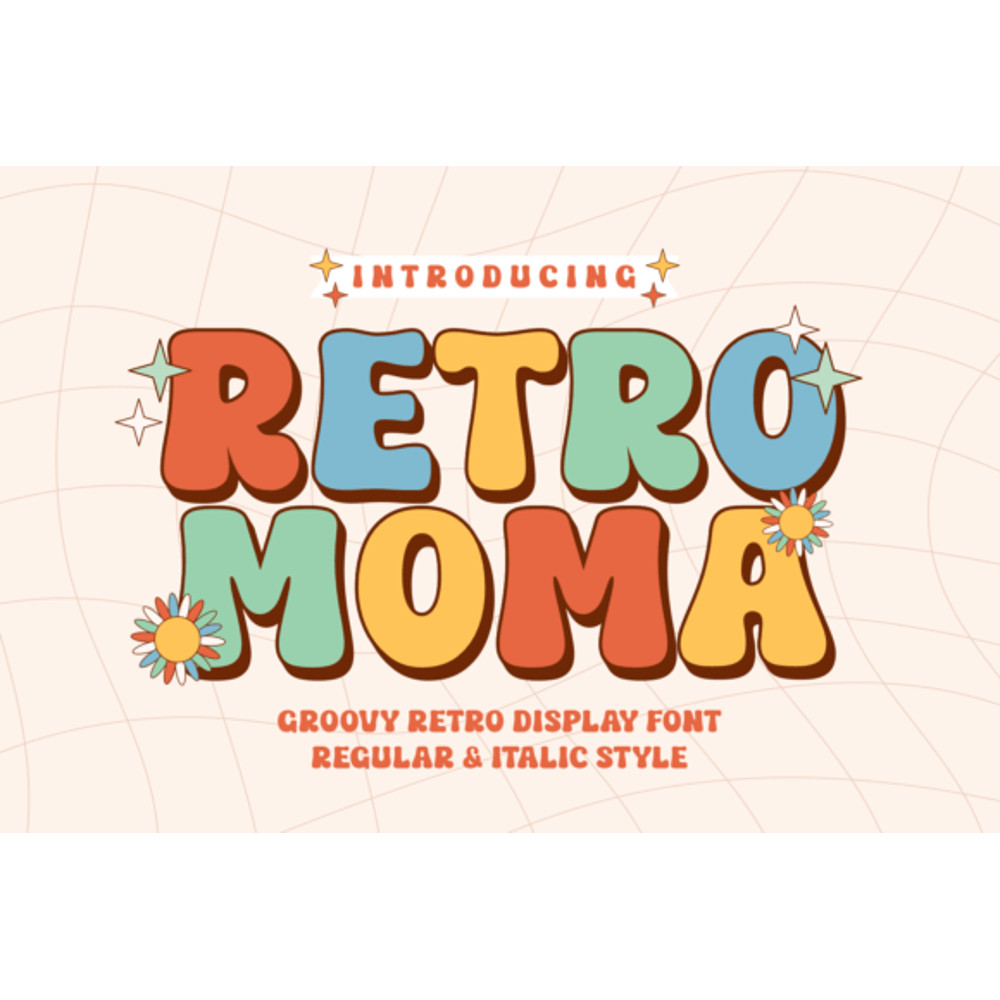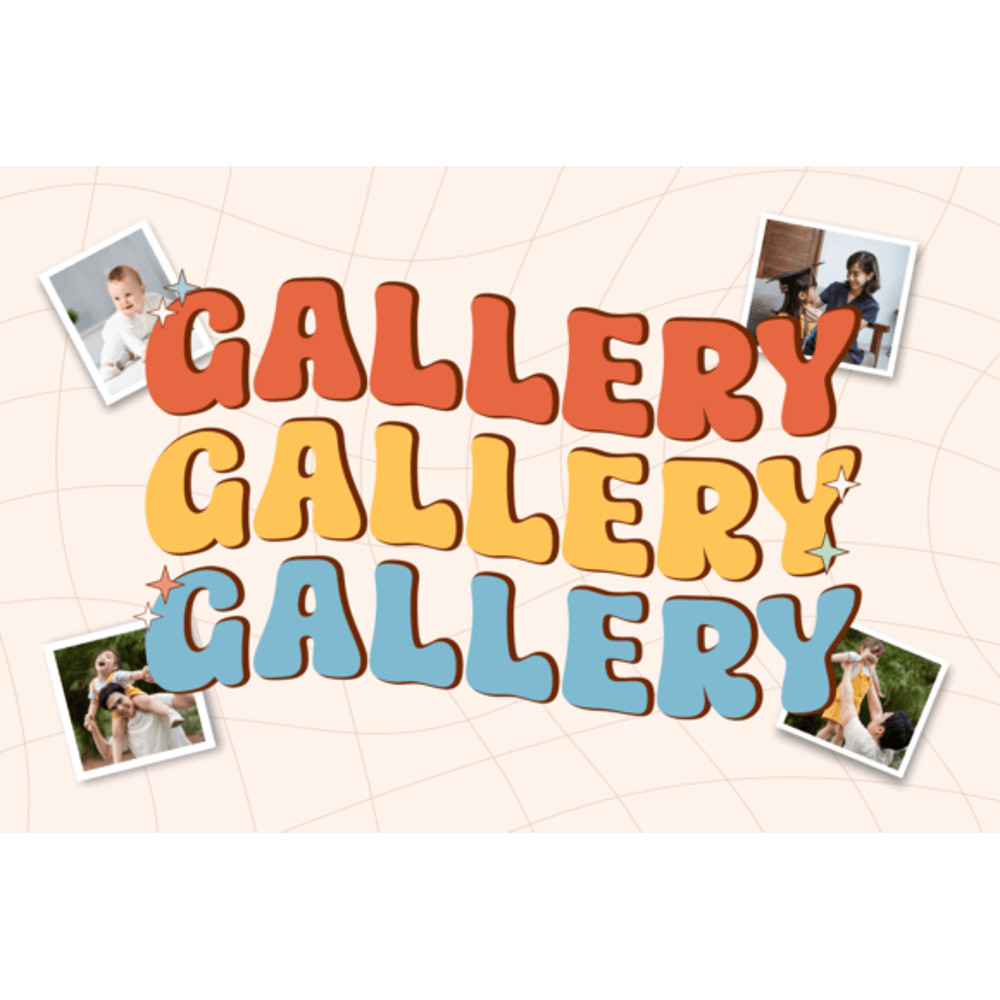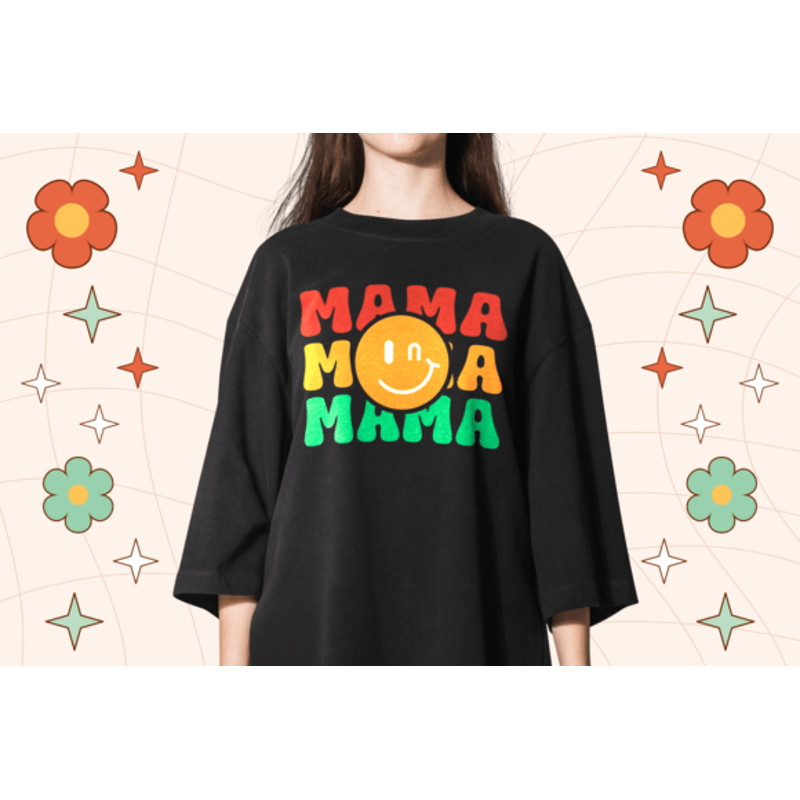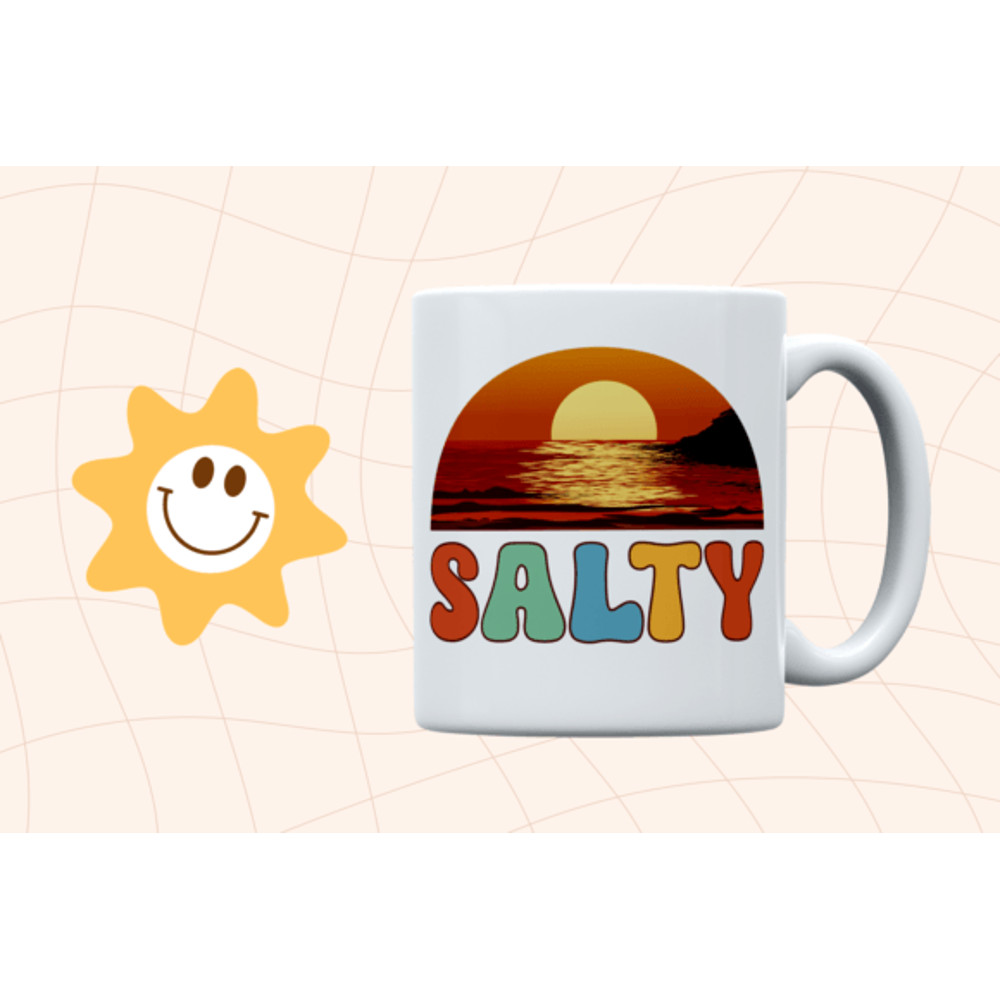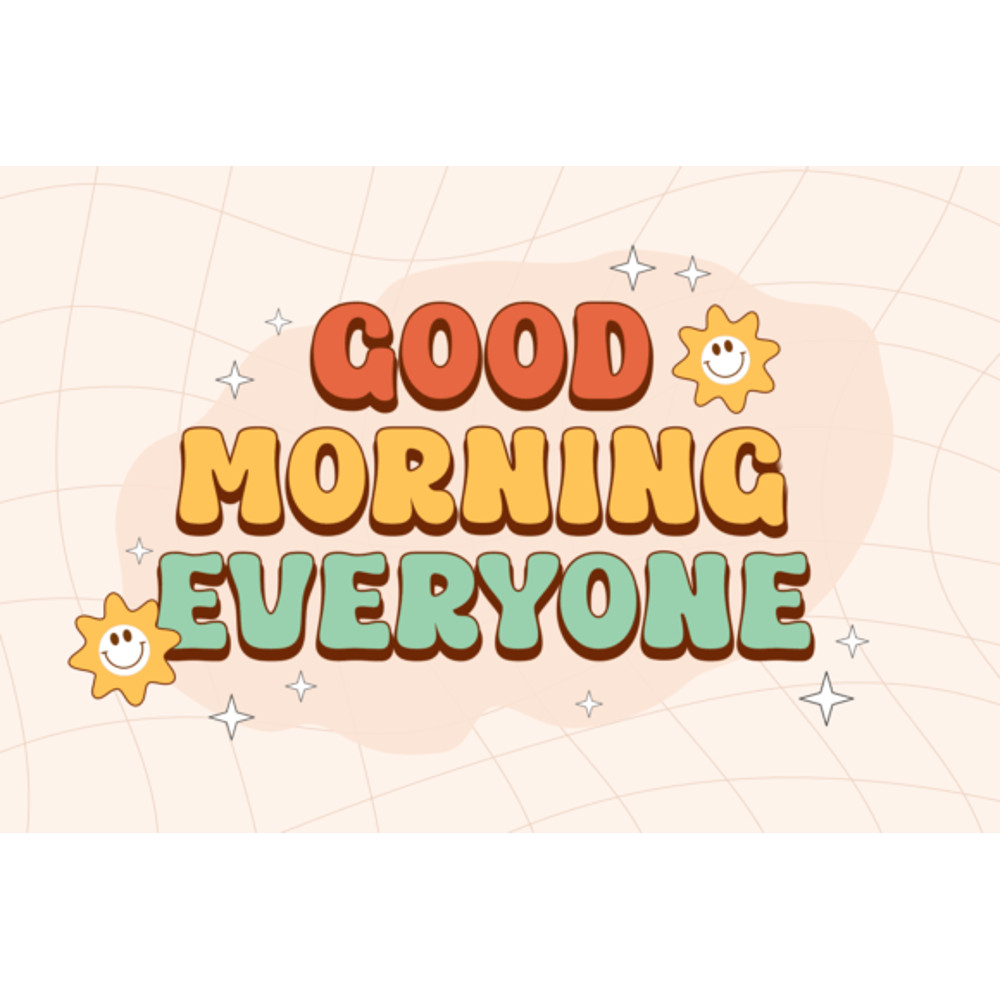
Retro Moma Font
Retro Moma is playfully nostalgic and delivers an incredible display font. Use this display font to add that special retro touch to any design idea you can think of! Masterfully designed to become a true favorite, this font has the potential to bring each of your creative ideas to the highest level!